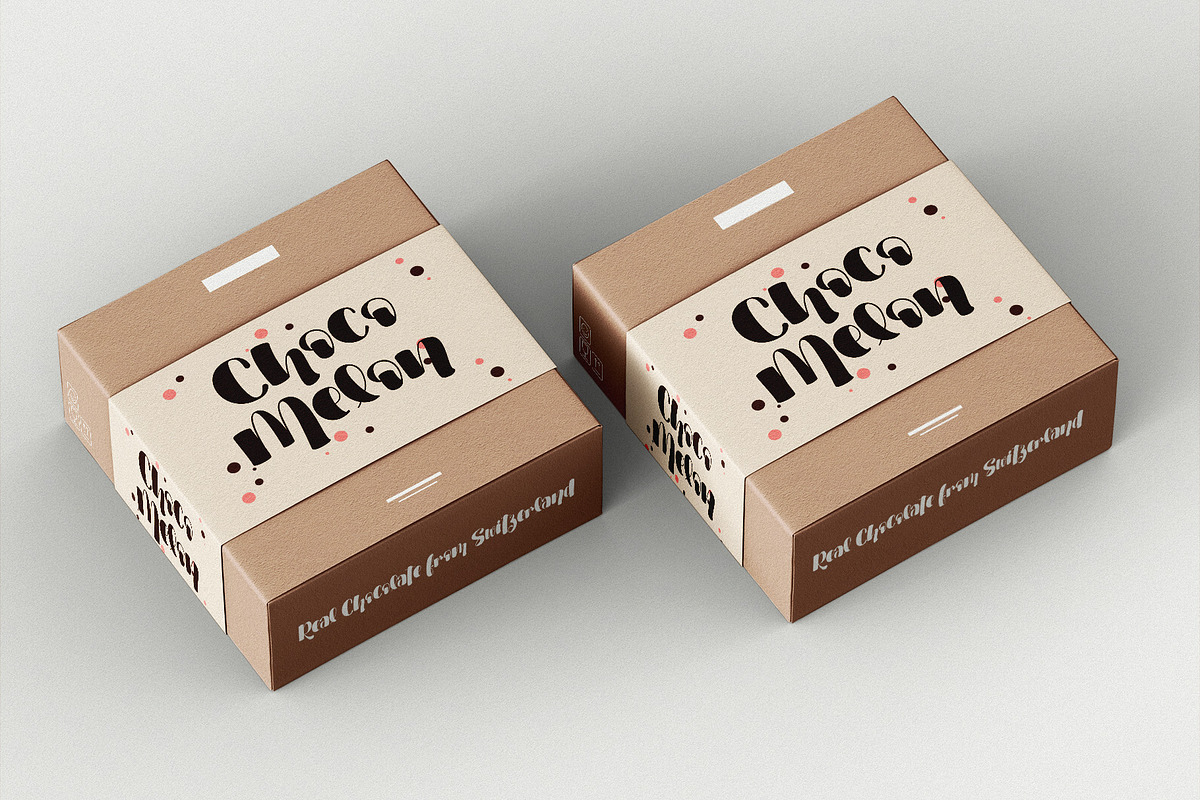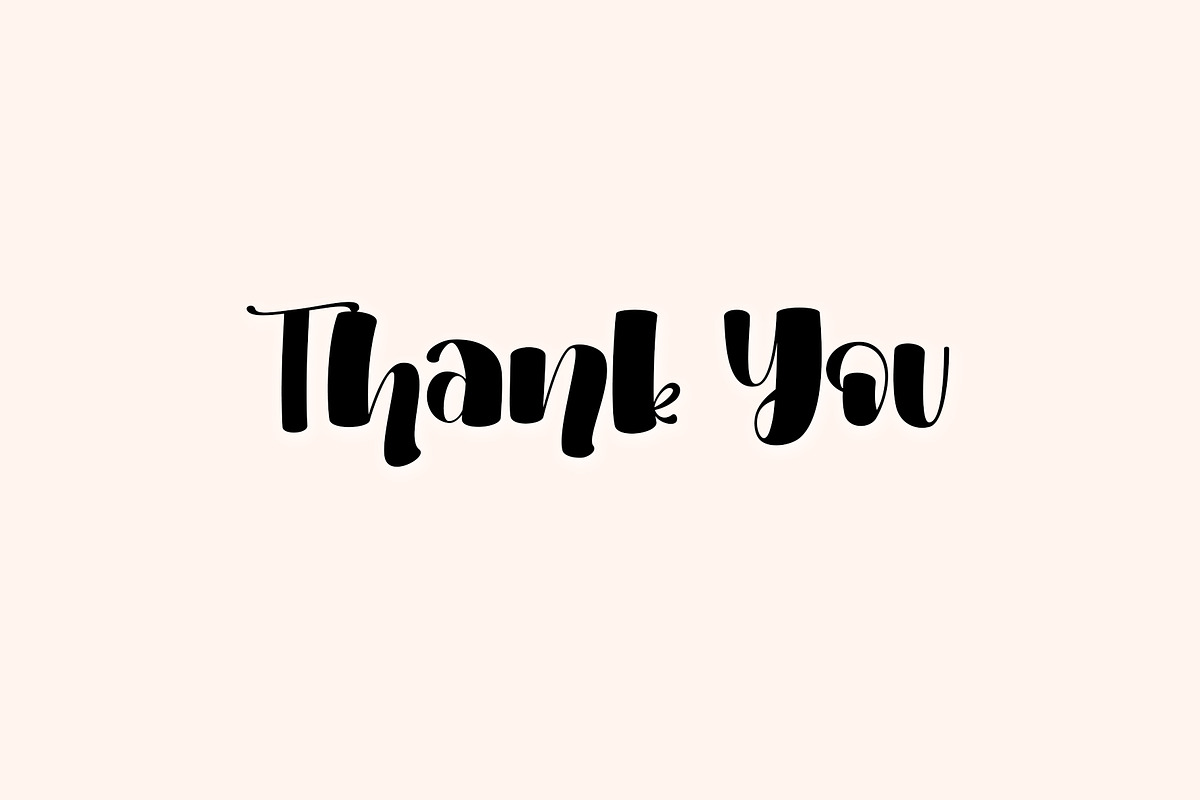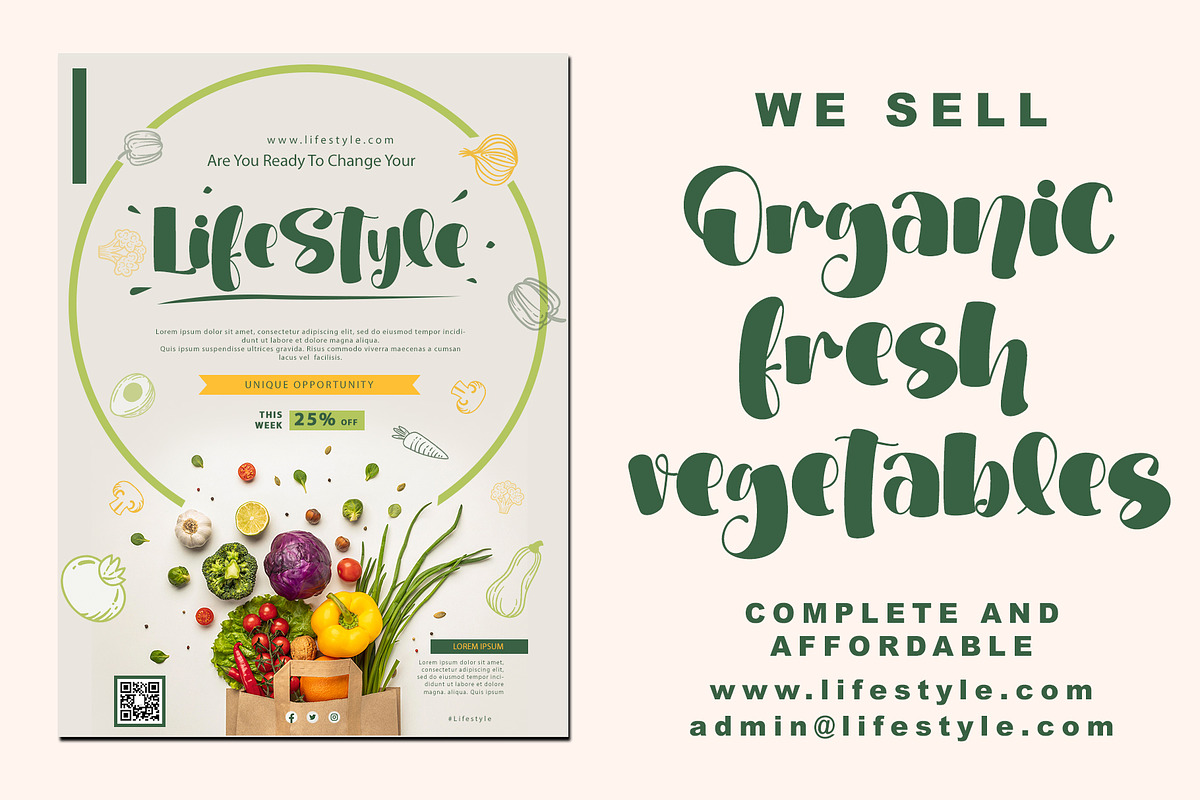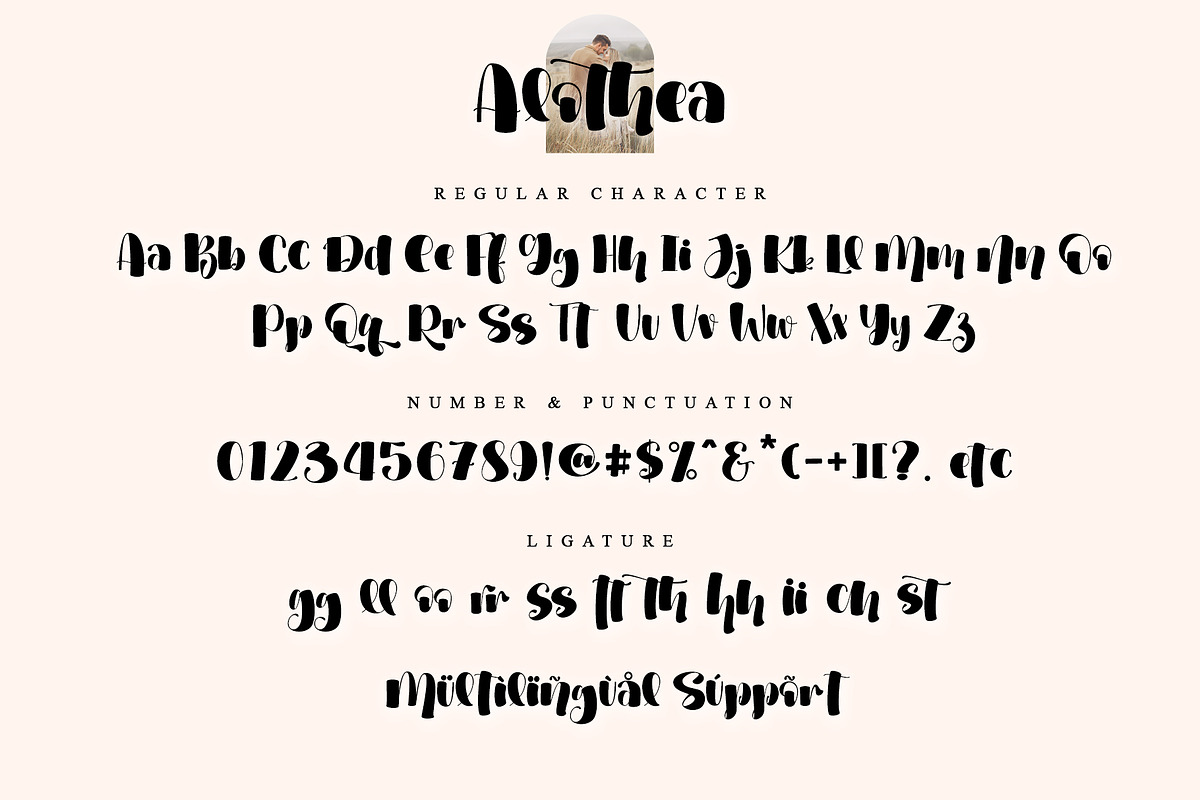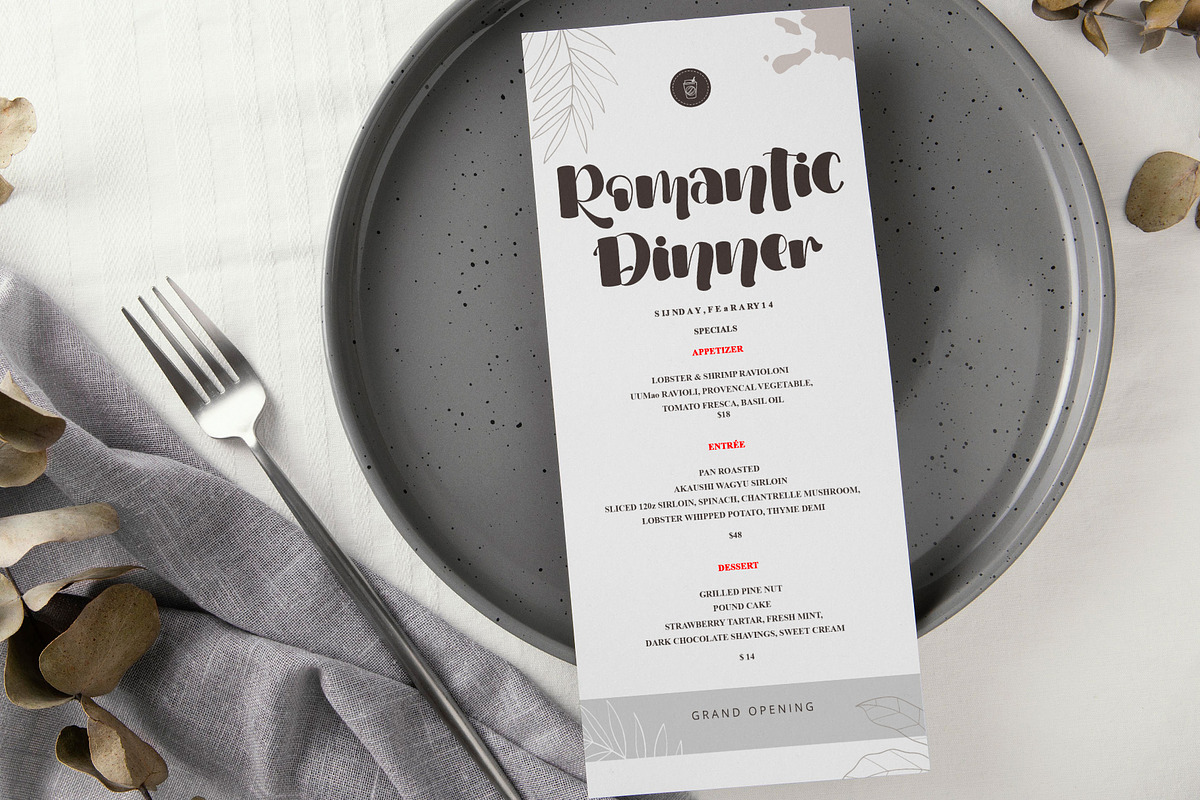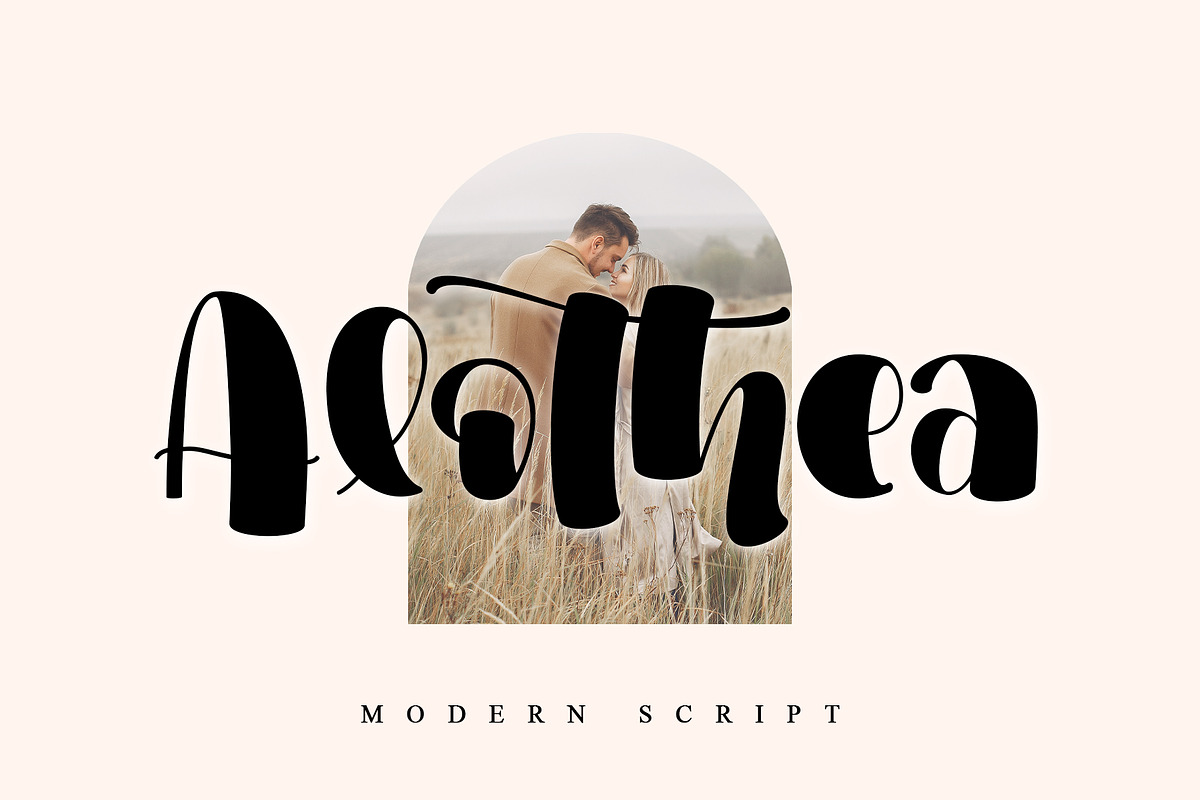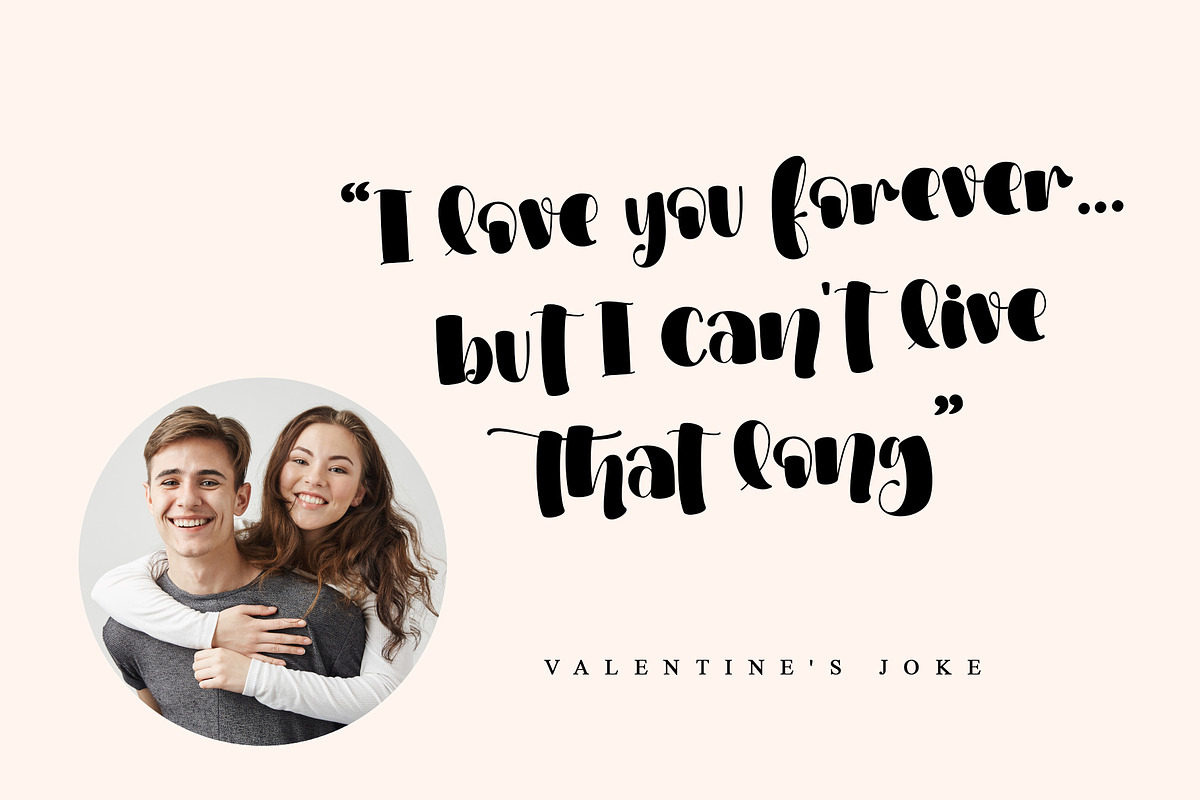
Alothea
Alothea is a friendly and modern script font with a quirky style. Masterfully designed to become a true favorite. Beautiful and versatile, this font will become your top choice for a wide spectrum of creative ideas in no time! This font is PUA encoded which means you can access all of the glyphs.
- Support multilingual; ä ö ü Ä Ö Ü ß ¿ ¡
- lowercase and uppercase letters